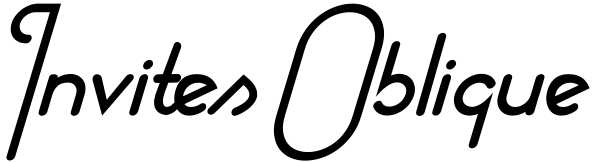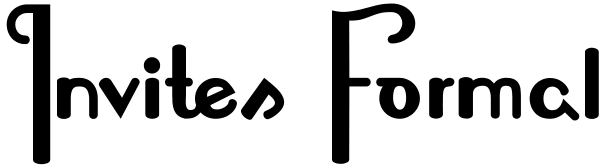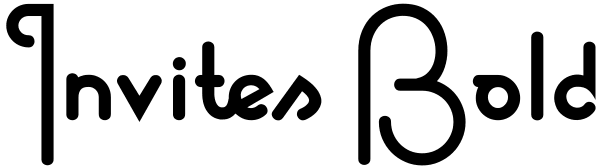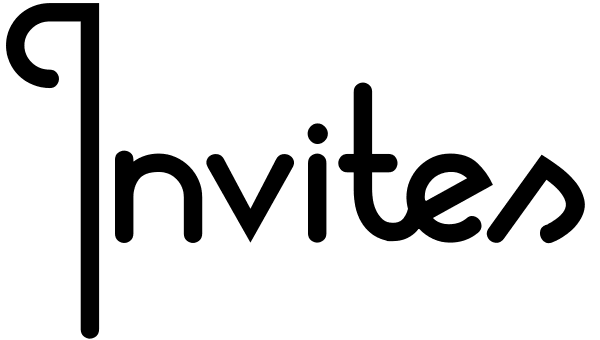
Invites
Invites is a digital recreation of a 1920’s mechanical script that has never existed. I designed it for my wedding invitations last year and named it in honor of my wife. Who said it wasn’t her. And she was right. So now it’s called something...